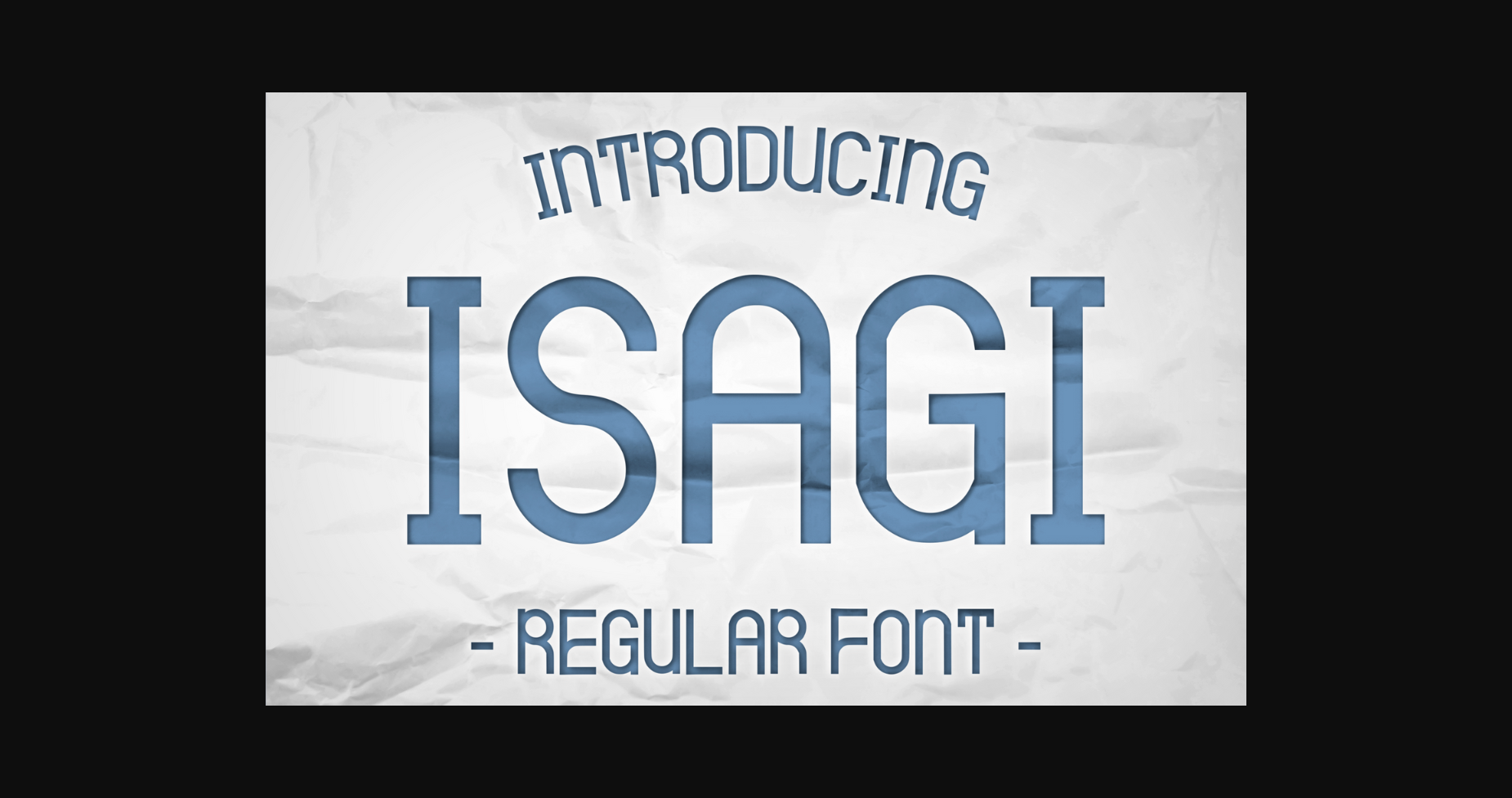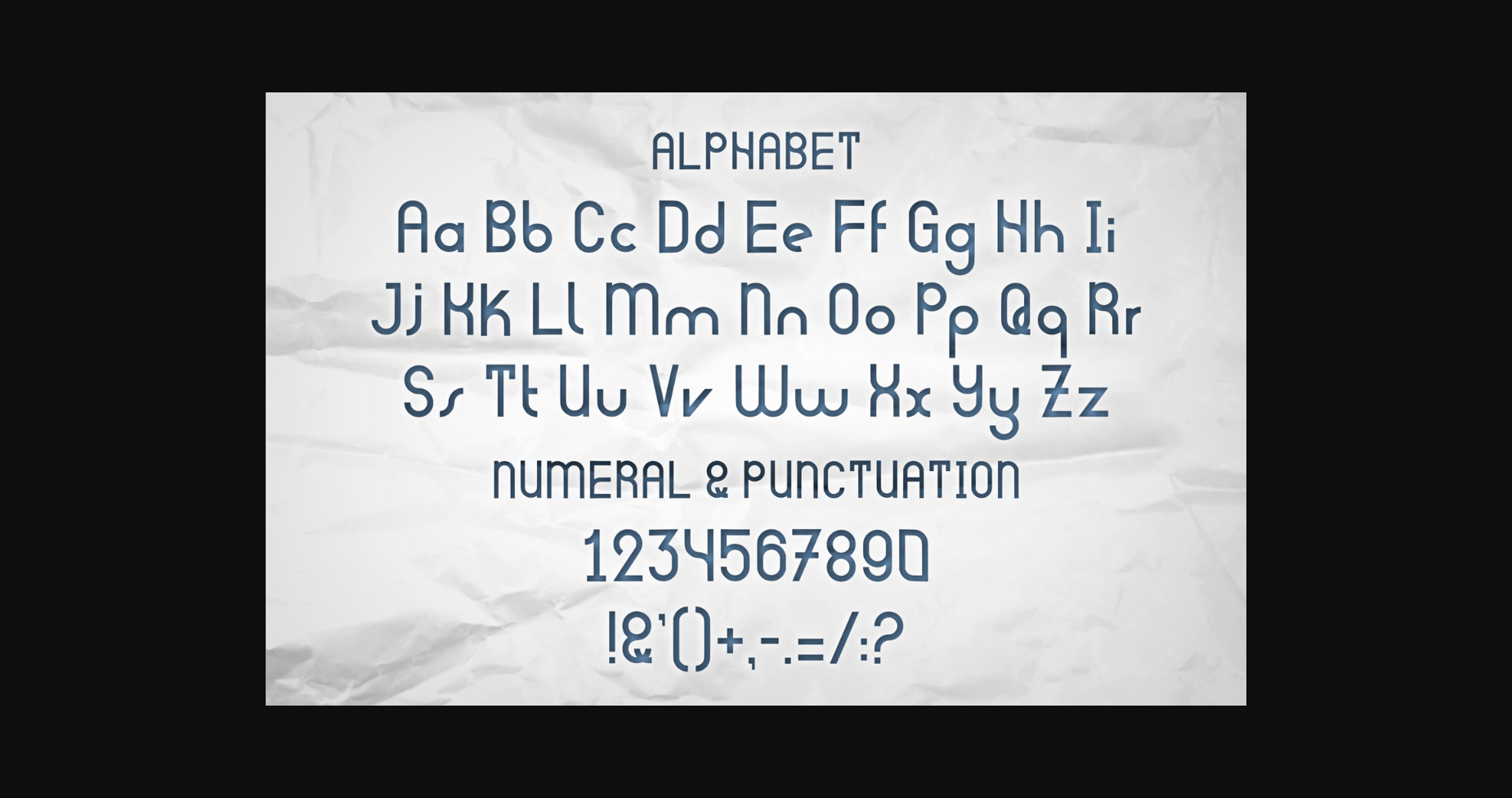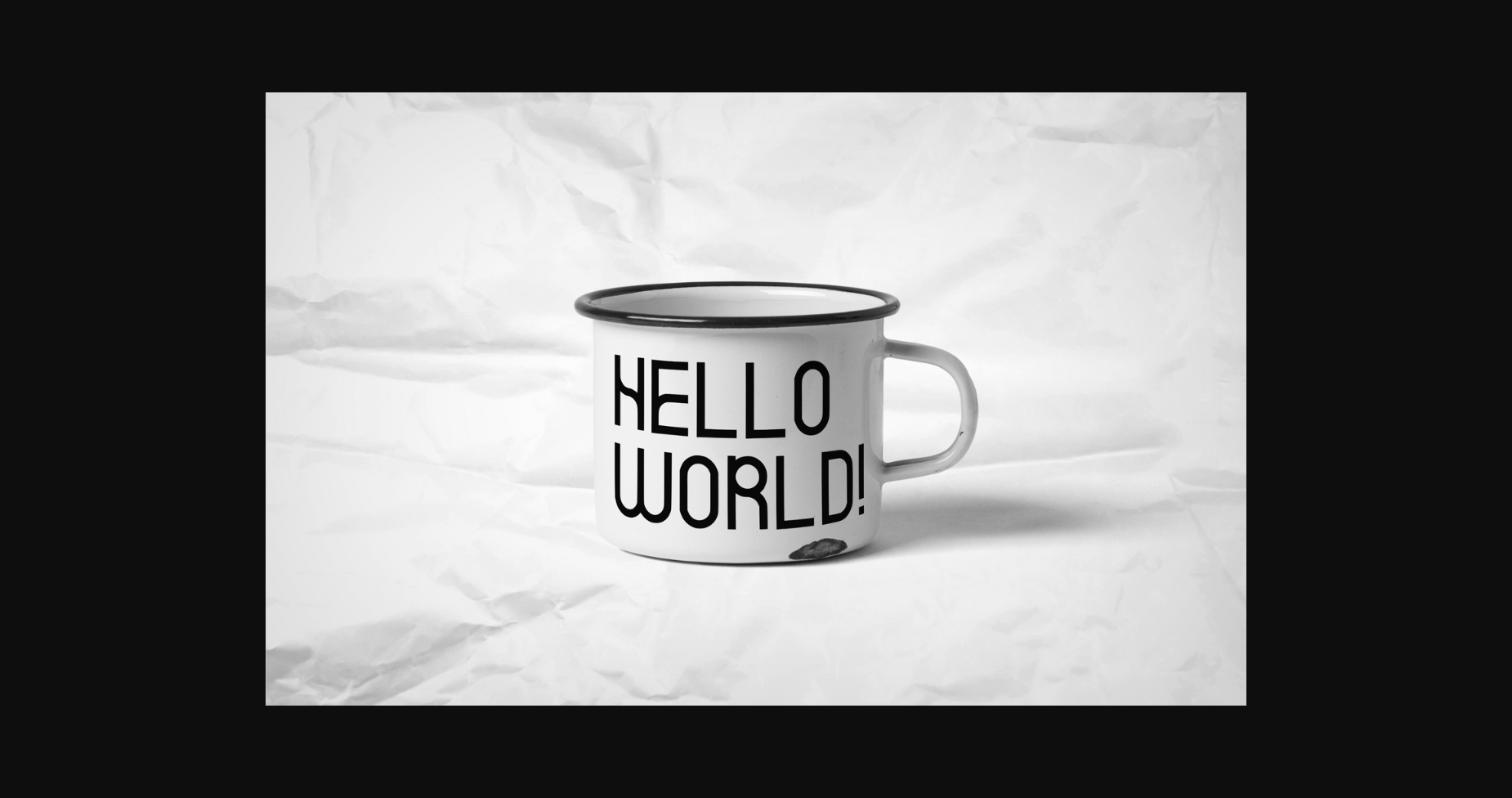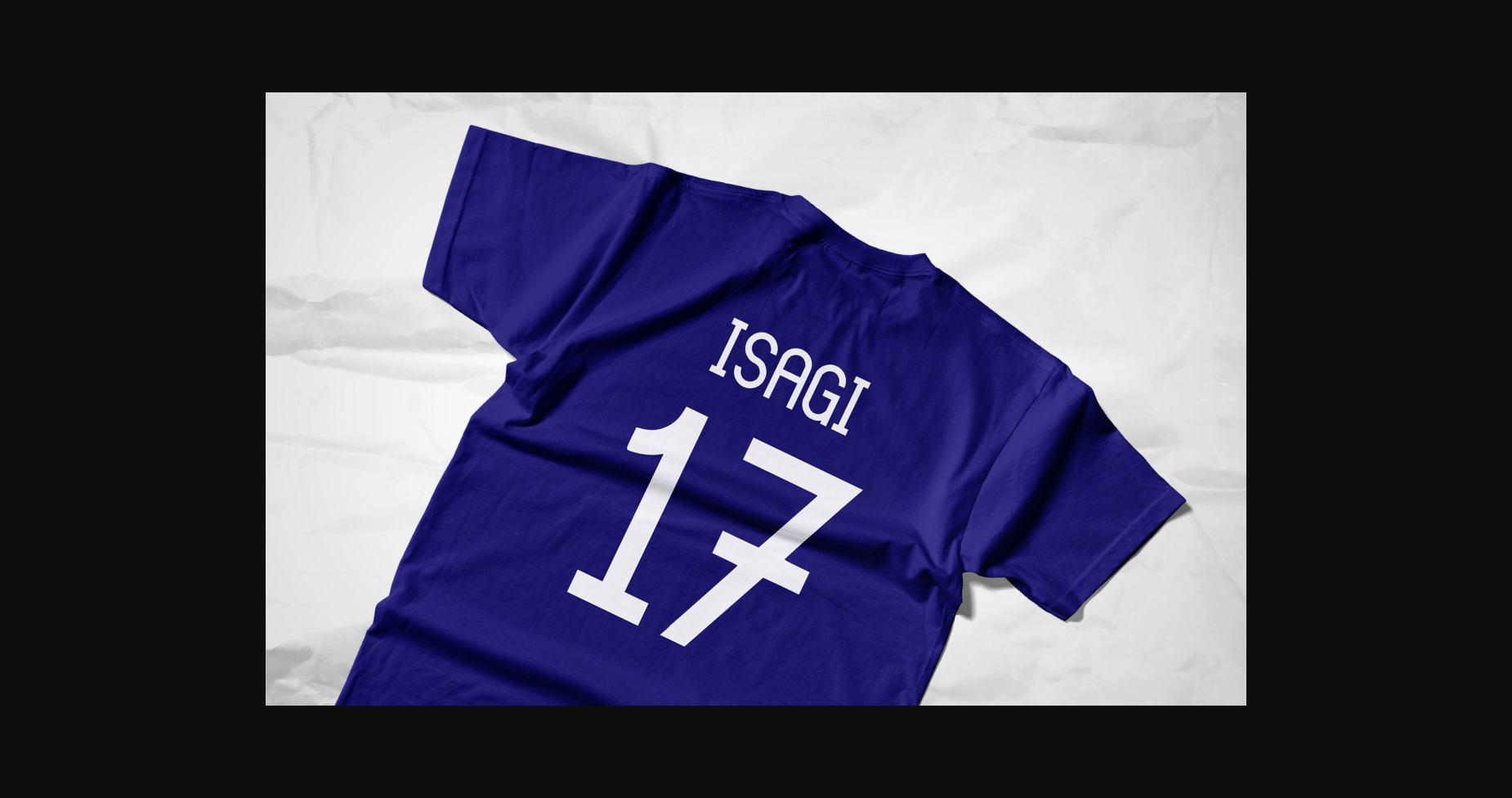
Isagi Font
Introducing the awe-inspiring “ISAGI” font, a mesmerizing symphony of exquisitely interwoven lines and circles. Each stroke gracefully dances in perfect harmony, exuding an unparalleled sense of balance and symmetry that captivates the eye.
Prepare to be enchanted by the sheer audacity of the “ISAGI” font, boasting an indomitable boldness that commands attention and leaves an indelible mark on every surface it graces. Its very essence embodies heroic grandeur, making it the ultimate choice for crafting the most epic movie titles, game titles, logos, and T-shirt designs.
With every character meticulously crafted to inspire and invigorate, “ISAGI” is a tour de force, a visual symphony that harmonizes raw power and elegance. Harness its potent potential, and watch your projects soar to unprecedented heights, instilling a sense of awe and admiration in all who behold it. Unleash the boundless potential of the “ISAGI” font, and let it become the very essence of your legendary creations.